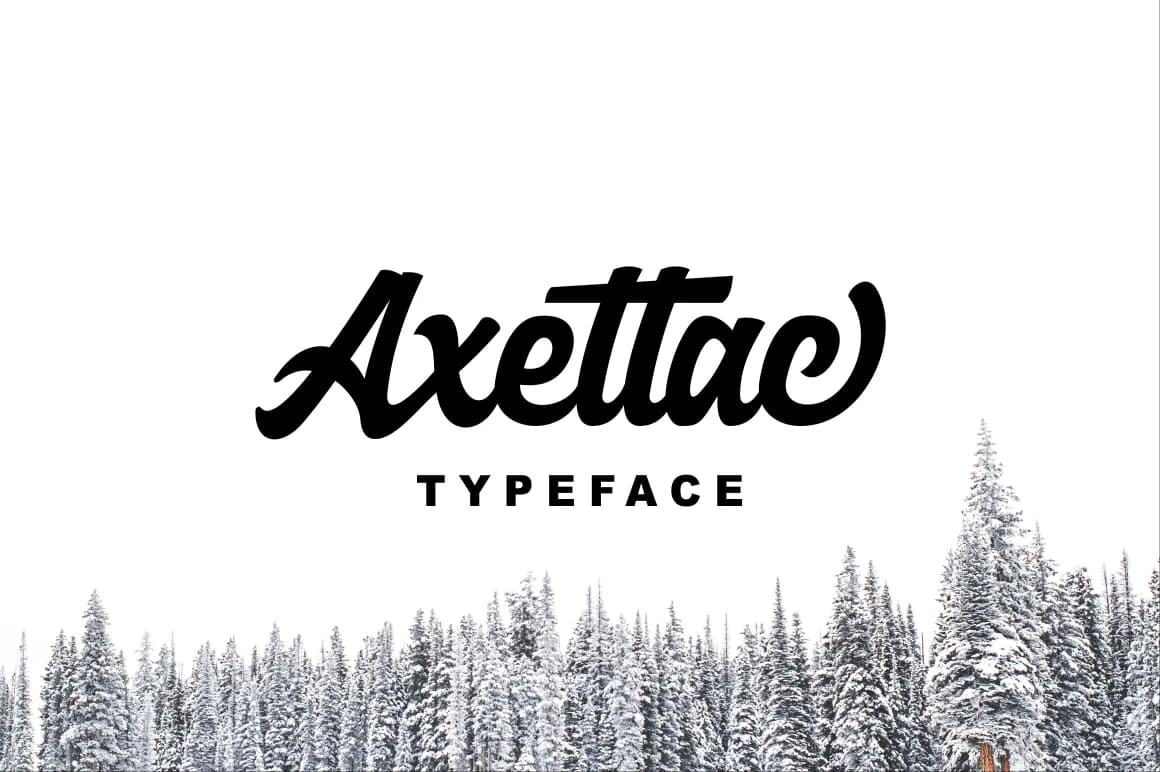
Axettac by Subqi Std is a bold daring script that brings attitude and personality to any project demanding visual impact. With its confident letterforms and expressive character, this typeface commands attention on the page while maintaining the readability needed for professional applications.
This contemporary script excels in fashion brand identity projects where personality matters most, from luxury apparel tags to boutique social media campaigns. It works beautifully for music album artwork and promotional graphics, editorial magazine headlines that need to grab readers, and custom merchandise design that demands presence. The font's decorative swashes add sophisticated flourish and dimension to headers and logos, allowing you to layer visual interest into every application. Comprehensive multilingual support ensures your designs can communicate across international markets and diverse audiences worldwide.
Axettac is built for designers who want their typography to speak with confidence and authority. Whether you're establishing brand identity for lifestyle companies, creating striking editorial layouts, designing custom apparel graphics, or producing eye-catching event signage and promotional materials, this script delivers unmistakable presence and impact. The combination of expressive letterforms and functional versatility makes this script ideal for projects that demand attention and distinction. Explore Axettac on Creative Fabrica and add this distinctive typeface to your design library.
Axettac Font is a script font that shines as a display or heading face. Pair it with a clean sans-serif or serif font for body text β the contrast creates a clear hierarchy while the two styles stay balanced and easy to read.